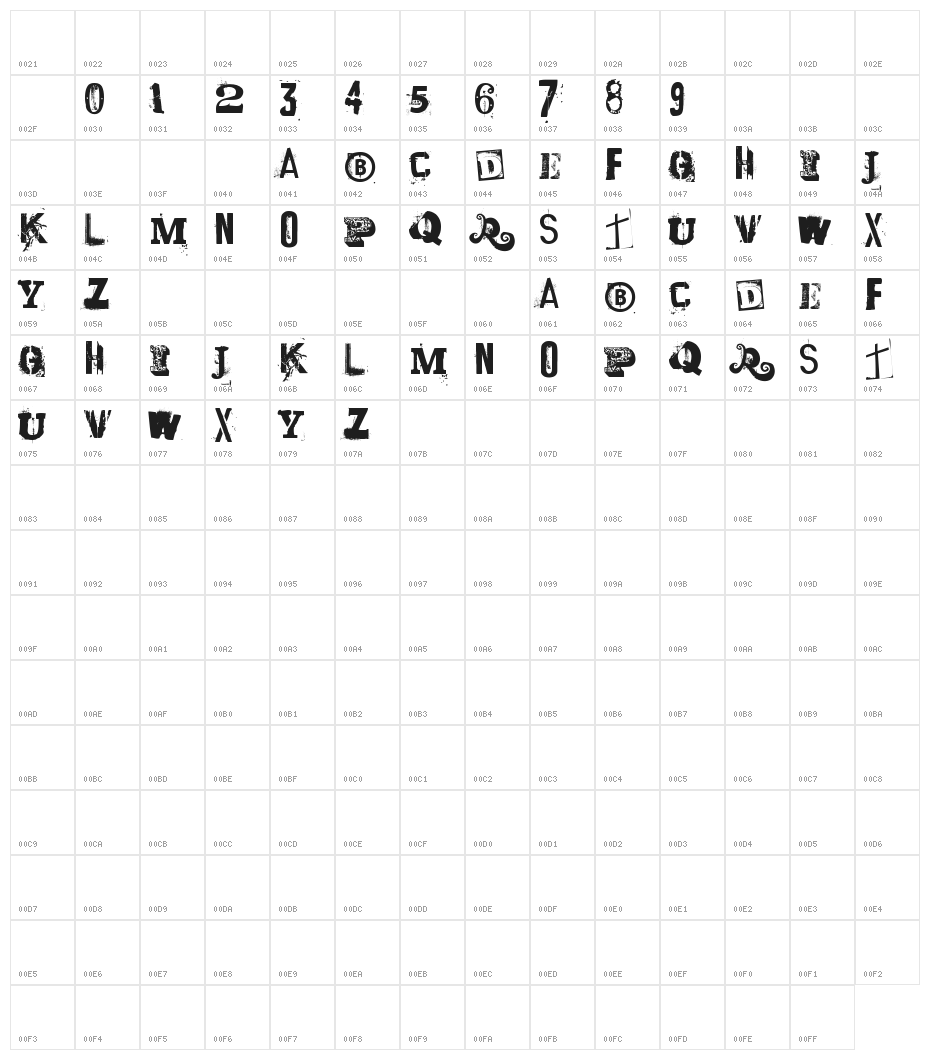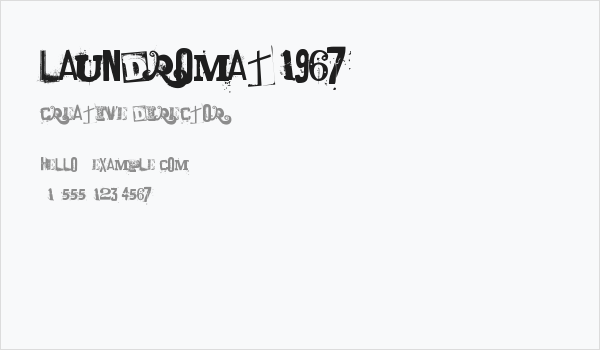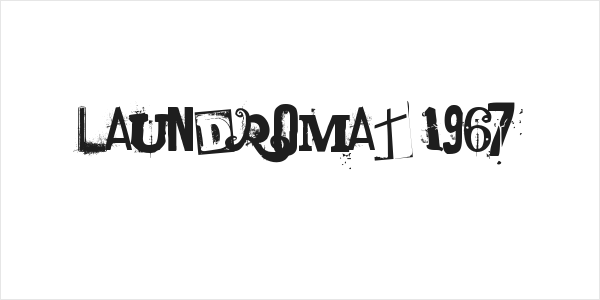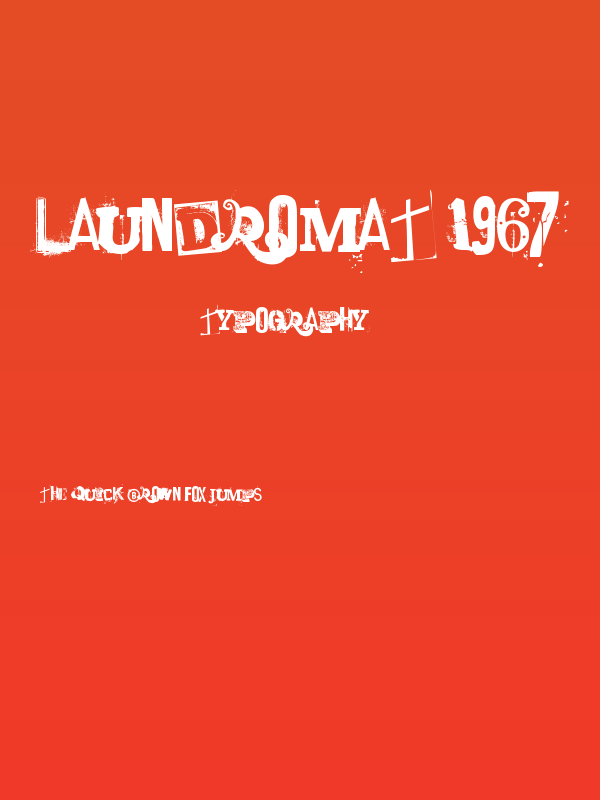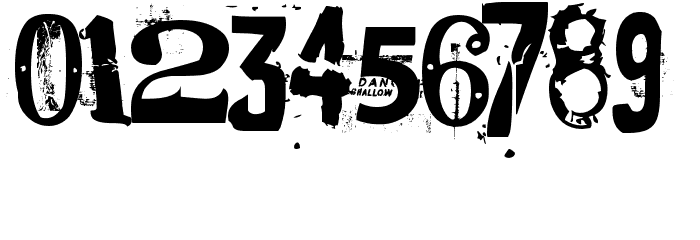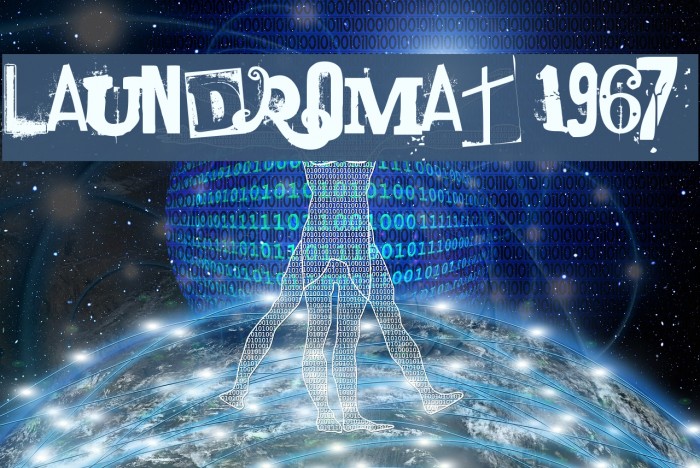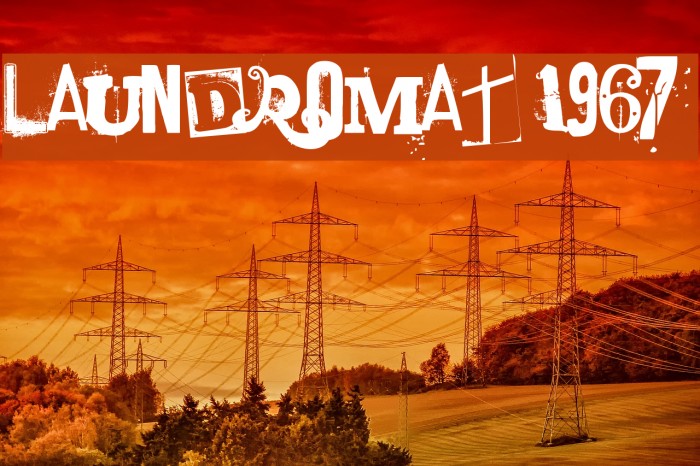
laundromat 1967 Font
| 全体的なスタイル | Grunge, Urban, Edgy |
| 用途 | Headlines, Posters, Album Covers |
| おすすめプロジェクト | Ideal for album covers, posters, street art designs, or any project needing a bold, edgy aesthetic. |